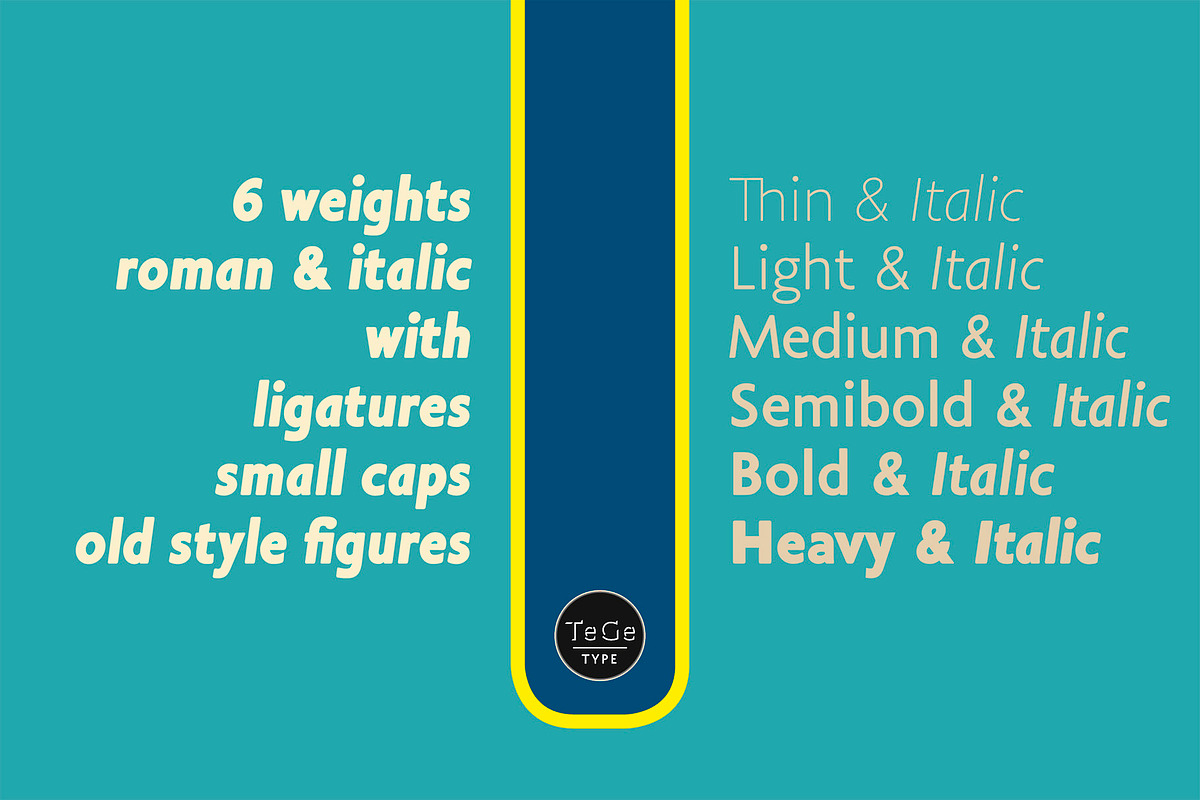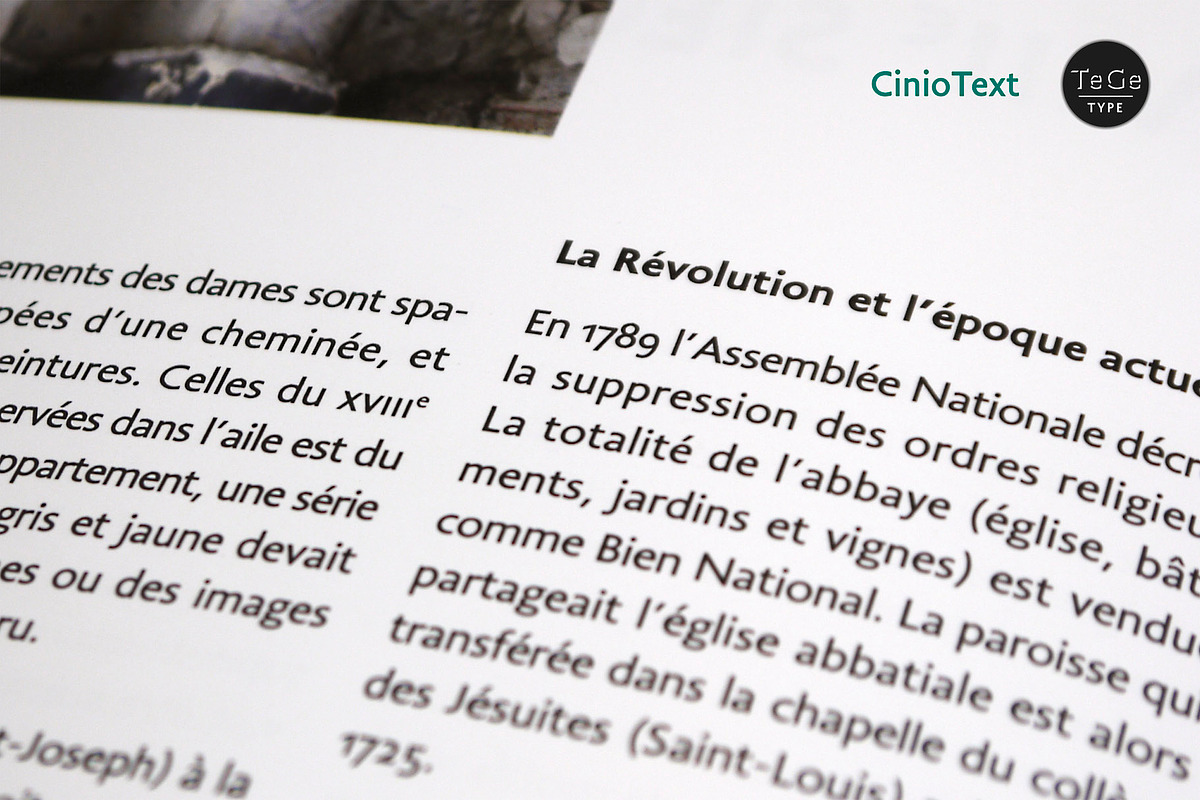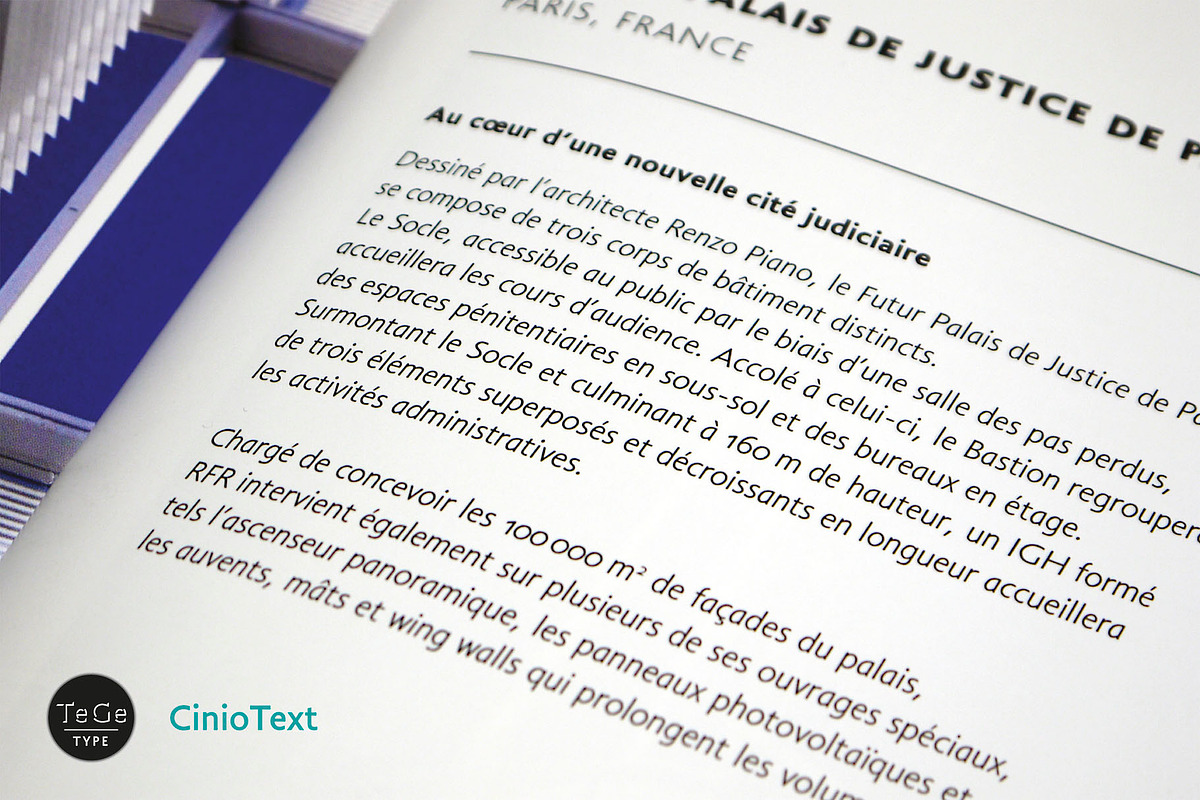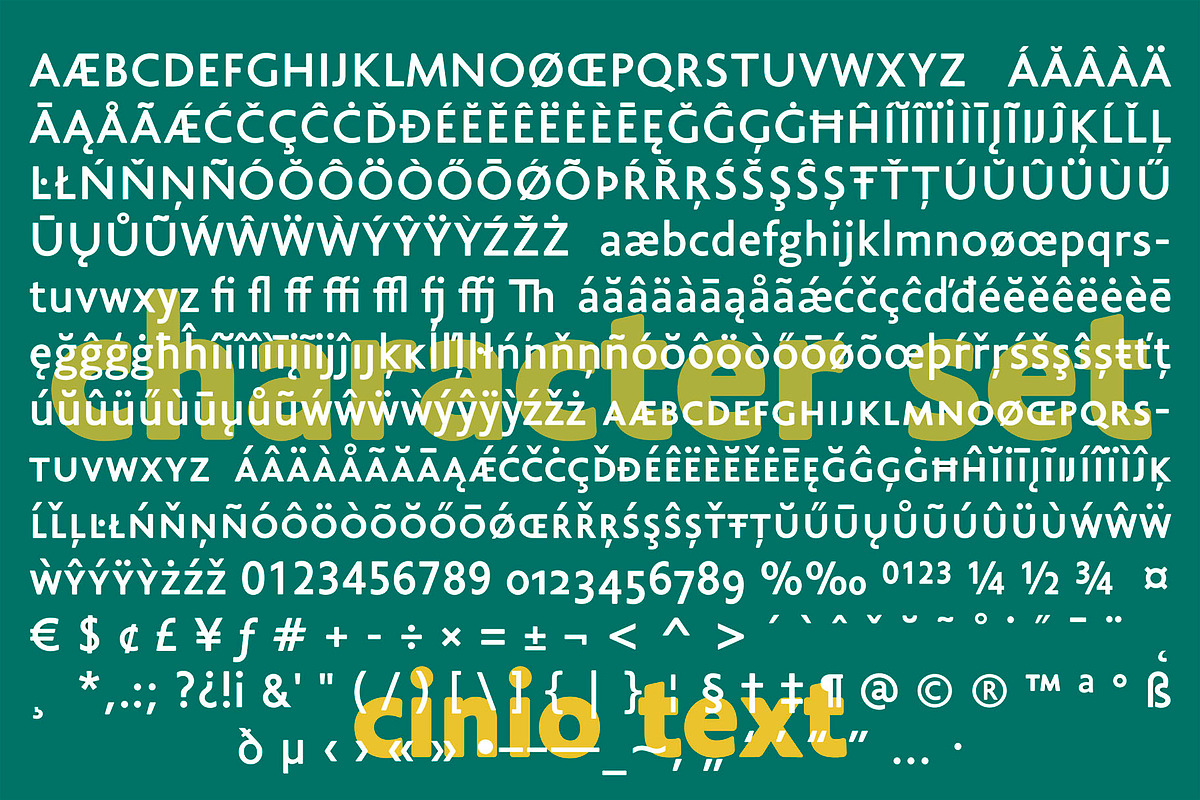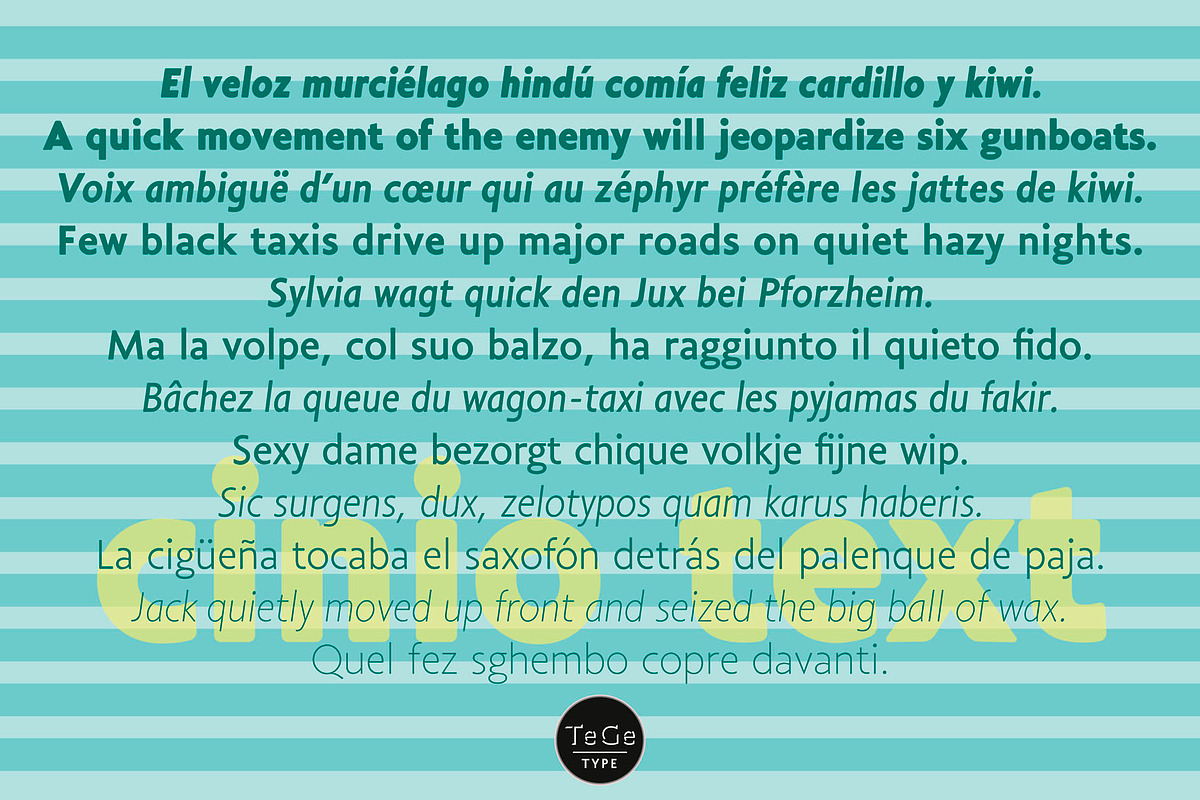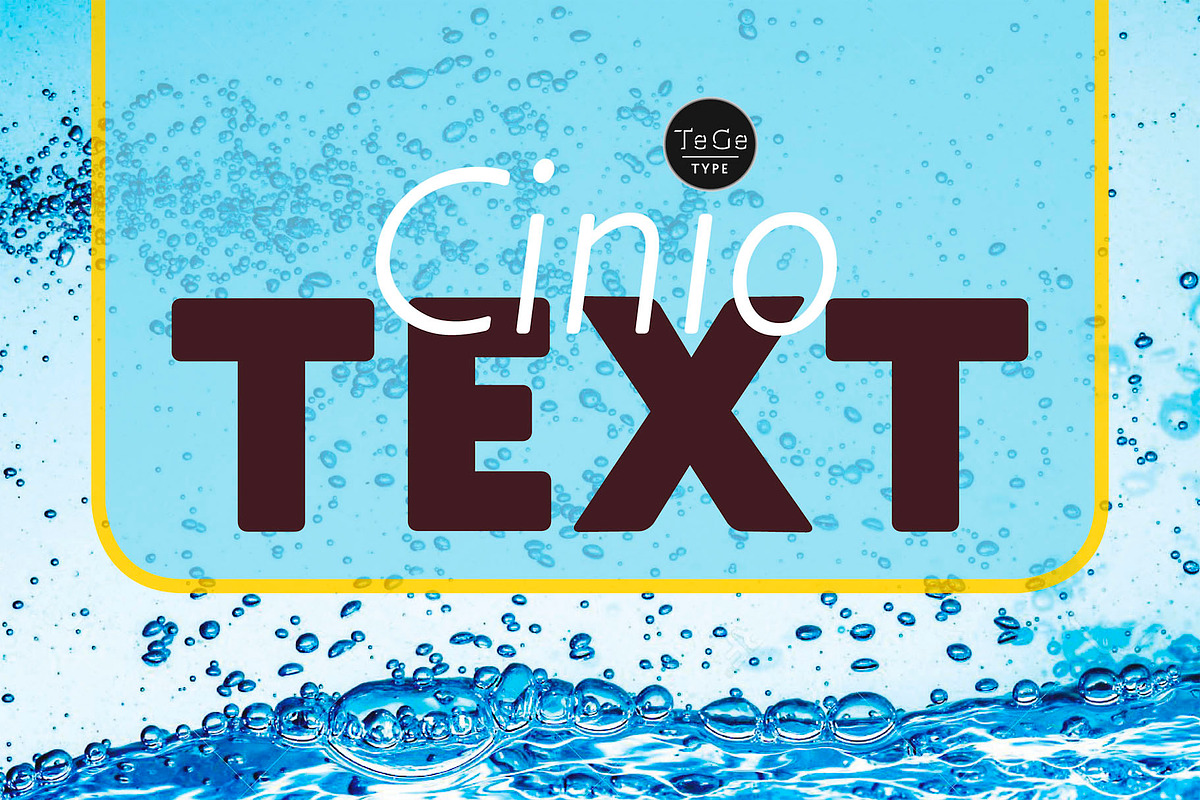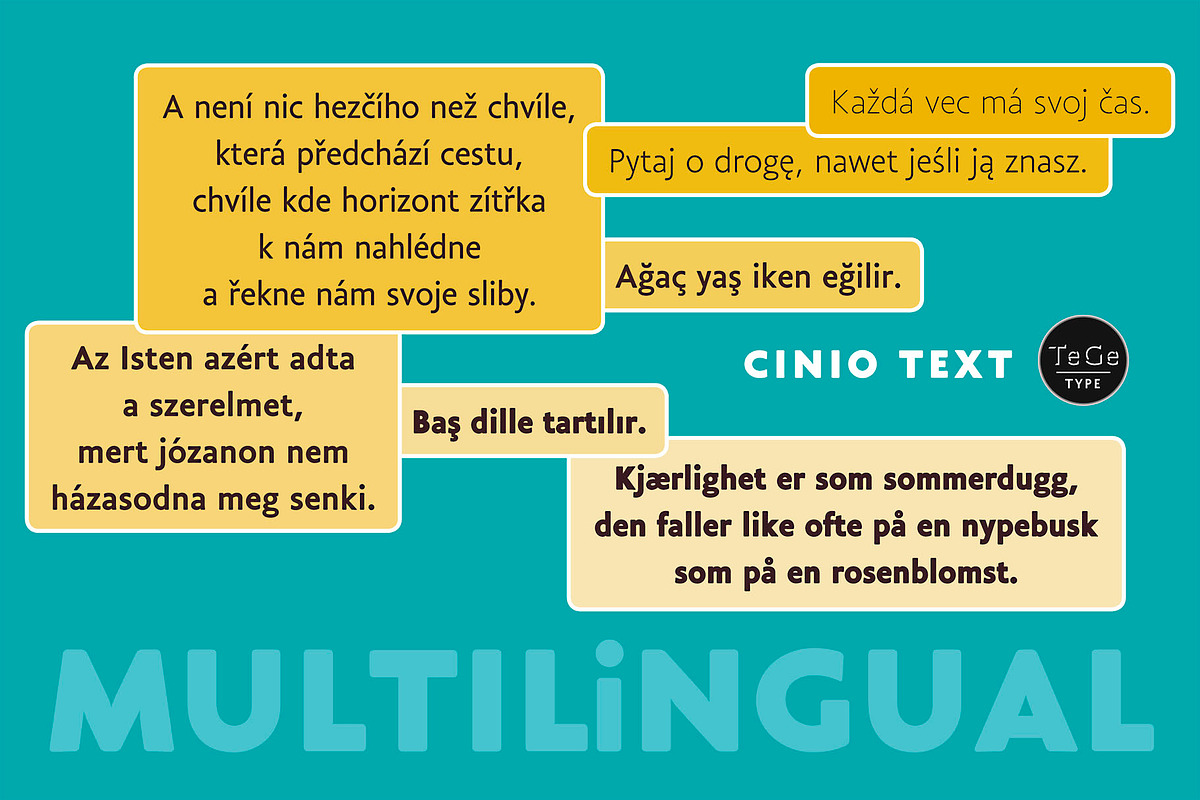
Cinio Text
The new Cinio Text type family is a version of Cinio that can be used on screen and for text composition. The rounded corners of the glyph design increase its legibility in small size and on supports with a low resolution.